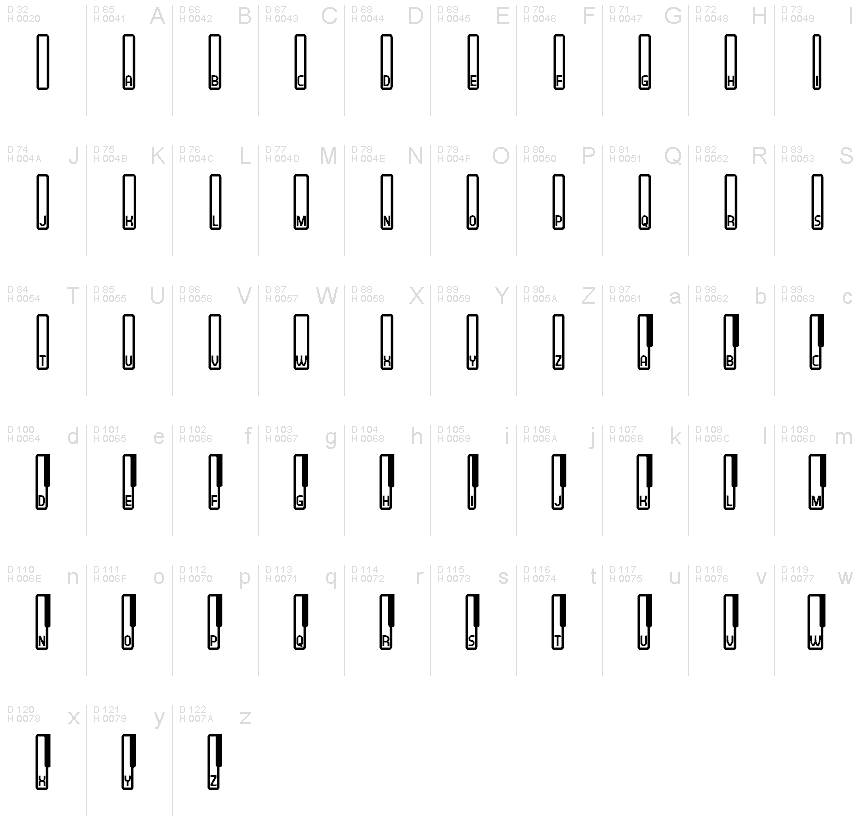
Shuberth Regular
Shuberth font is designed by Vladimir Nikolic. It is a decorative display typography in which letters integrate musical elements, mainly a keyboard and stripes. Other geometric shapes are used to maintain rhythm and enhance the overall modern appearance. Stark contrast is present between character elements adding an extra eye-catchy layer of detail.
A free display font with creative decoration to make headlines, packaging, posters, magazines, apparel designs, branding projects stand out more. Use this typeface for playing card sets that follow a musical theme or for jazz festivals logotypes. Metal or rock music concert tickets will be even more attractive when decorated with the characters inside!